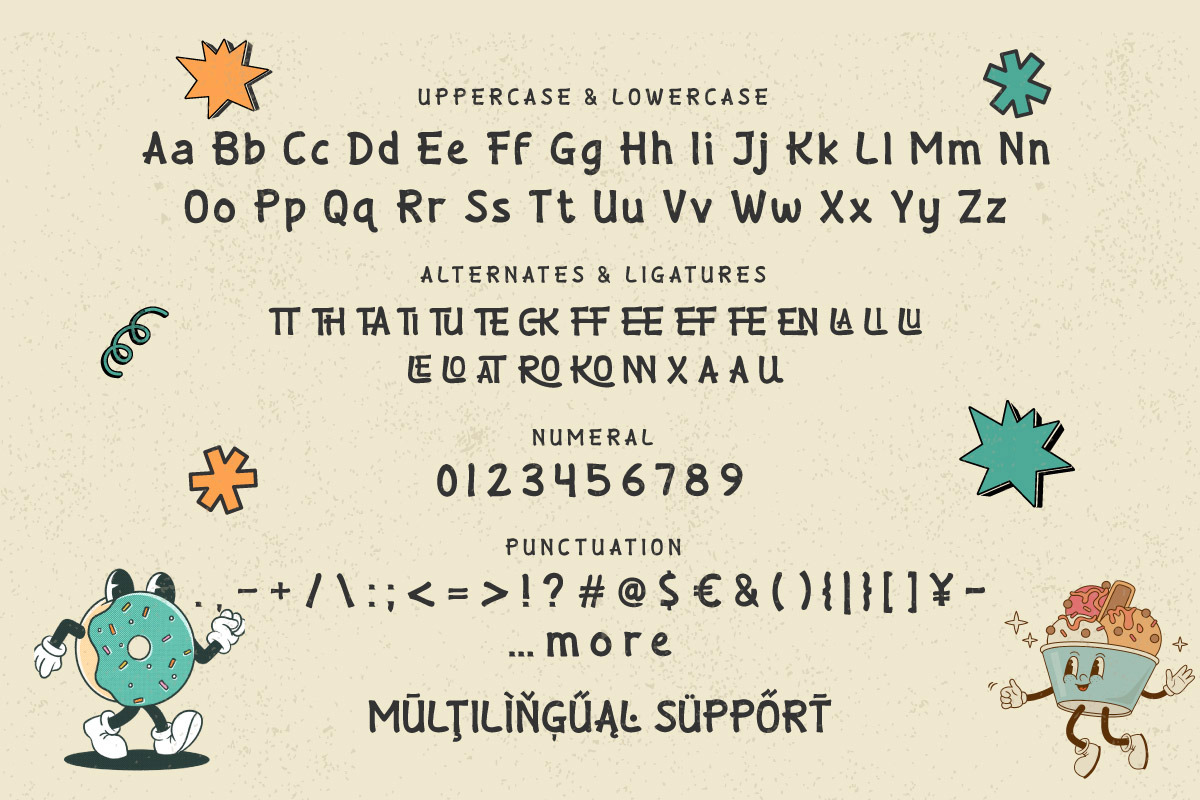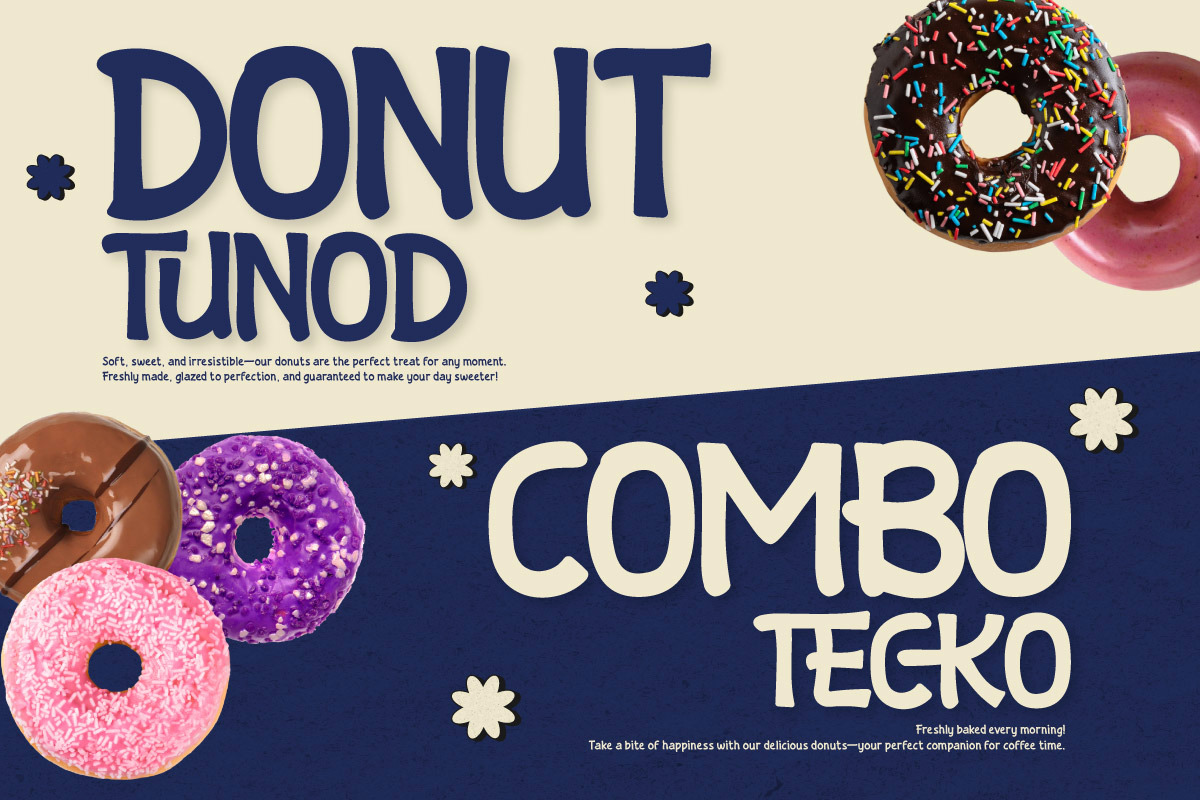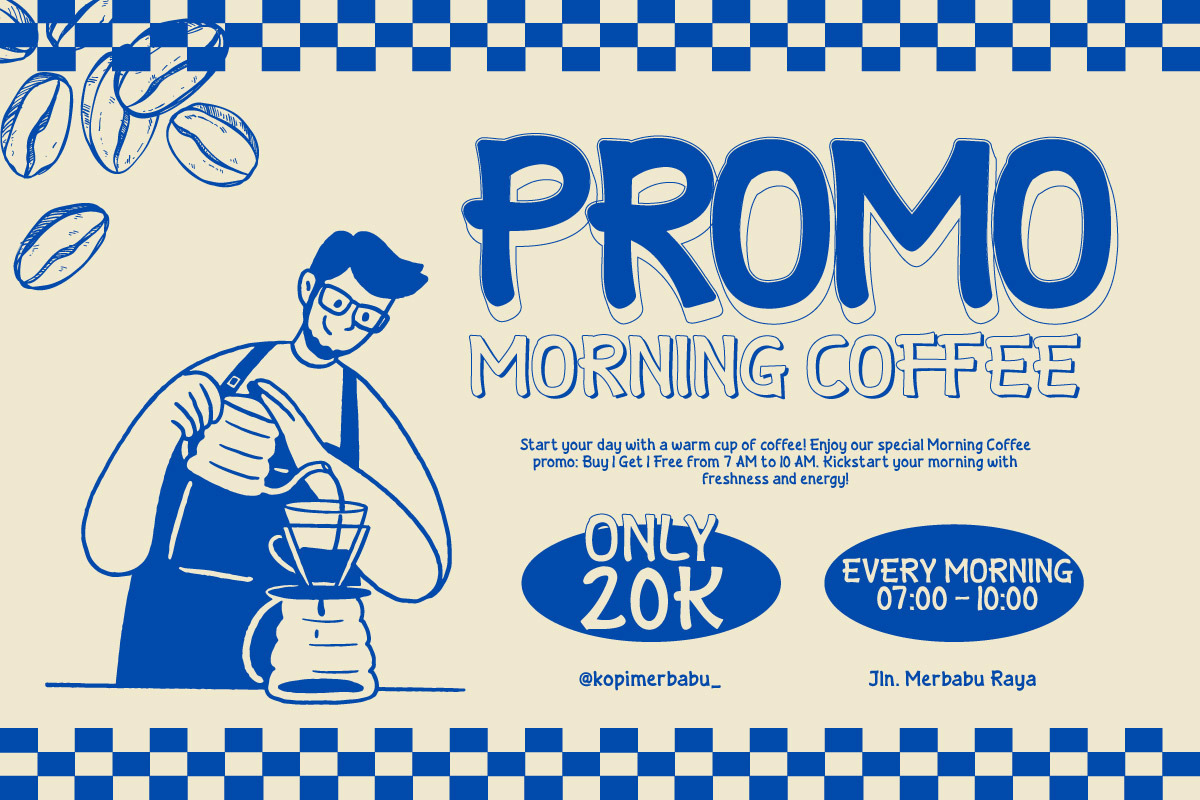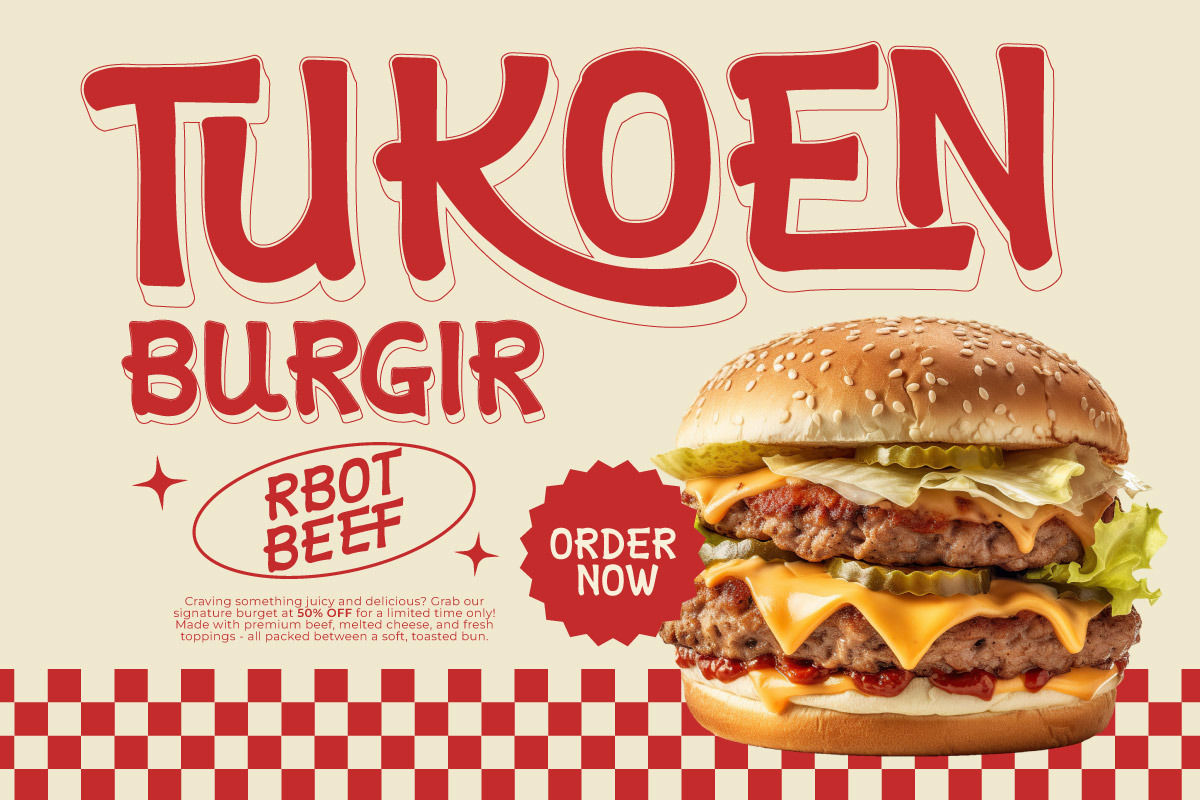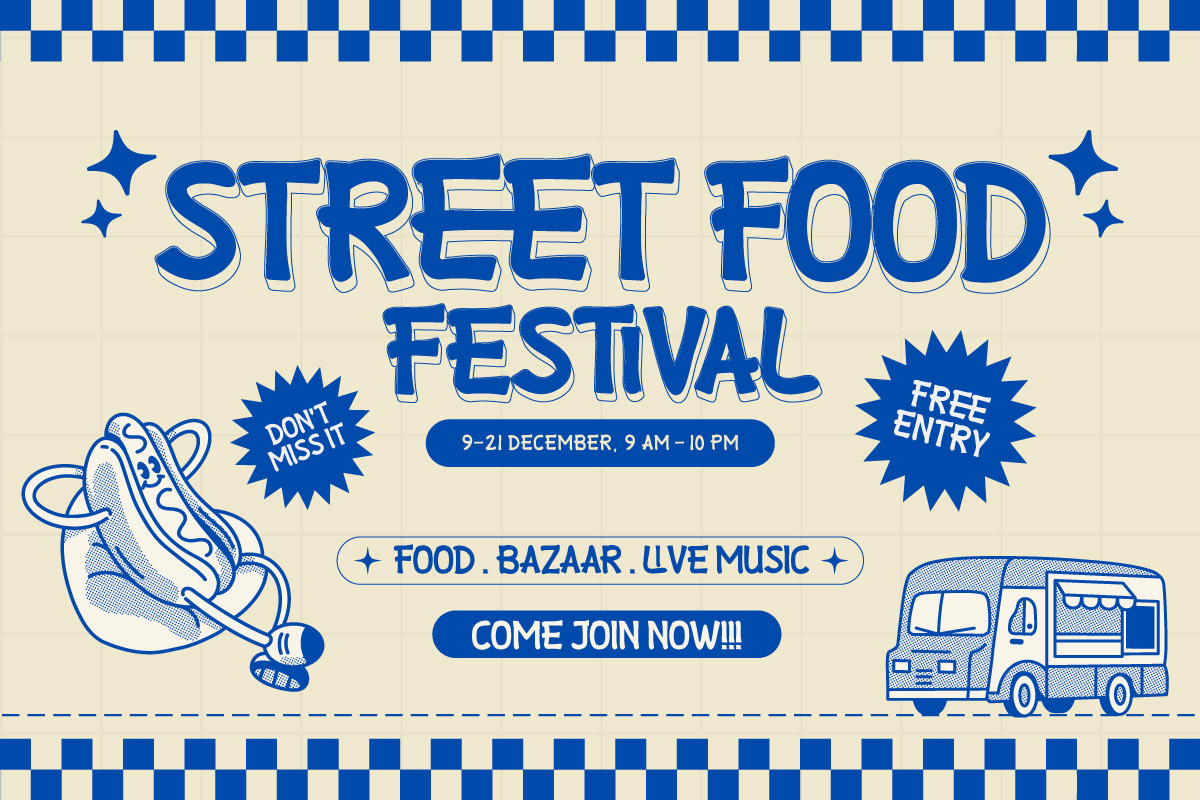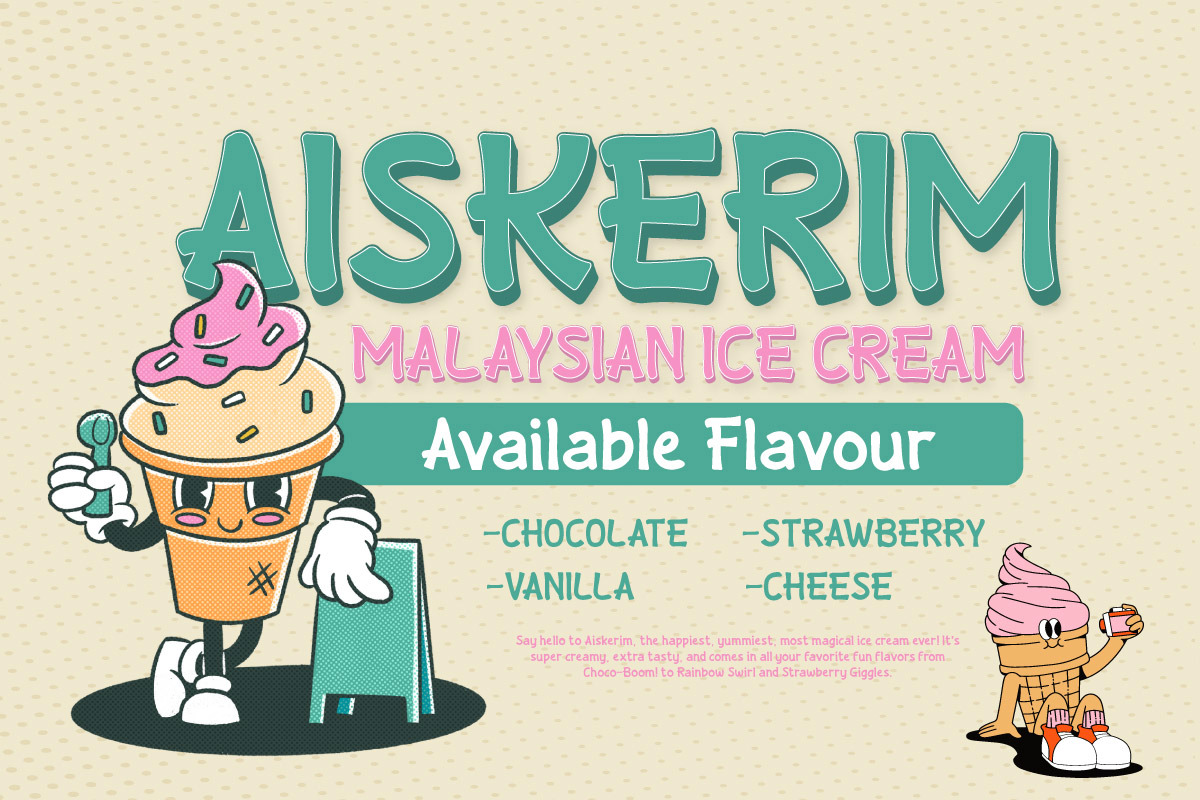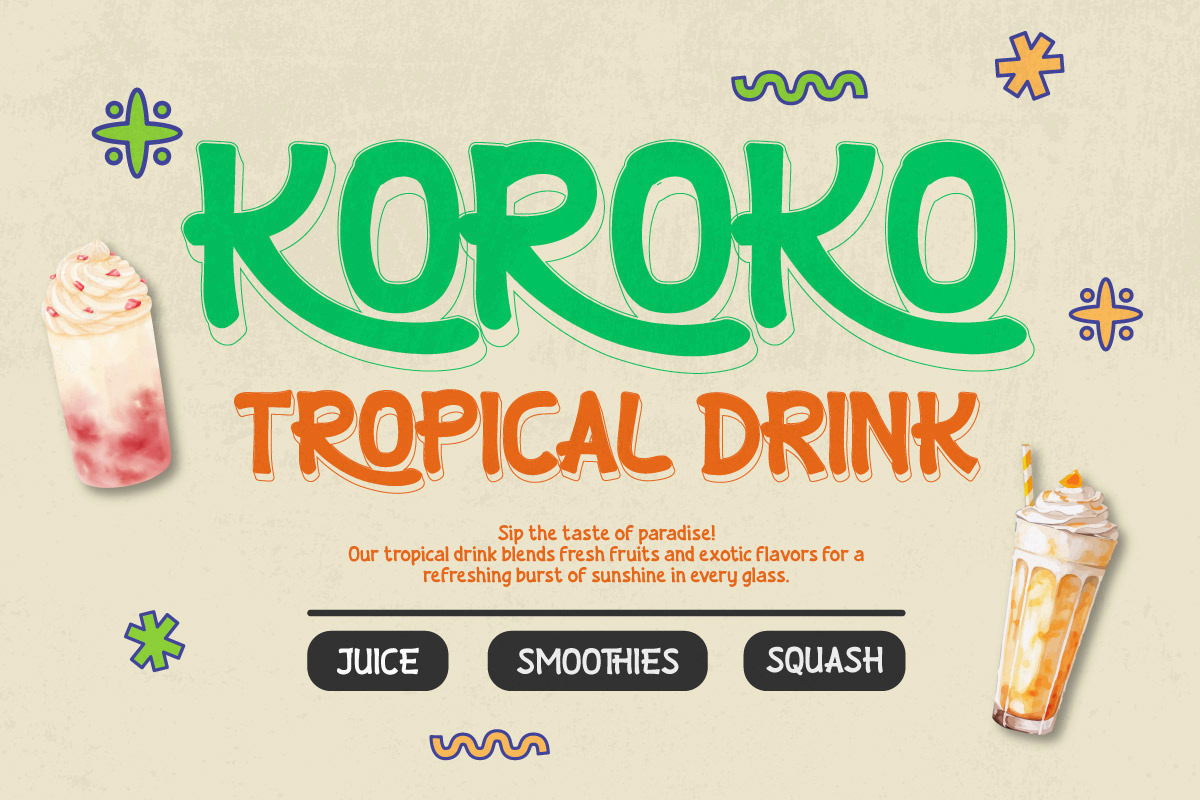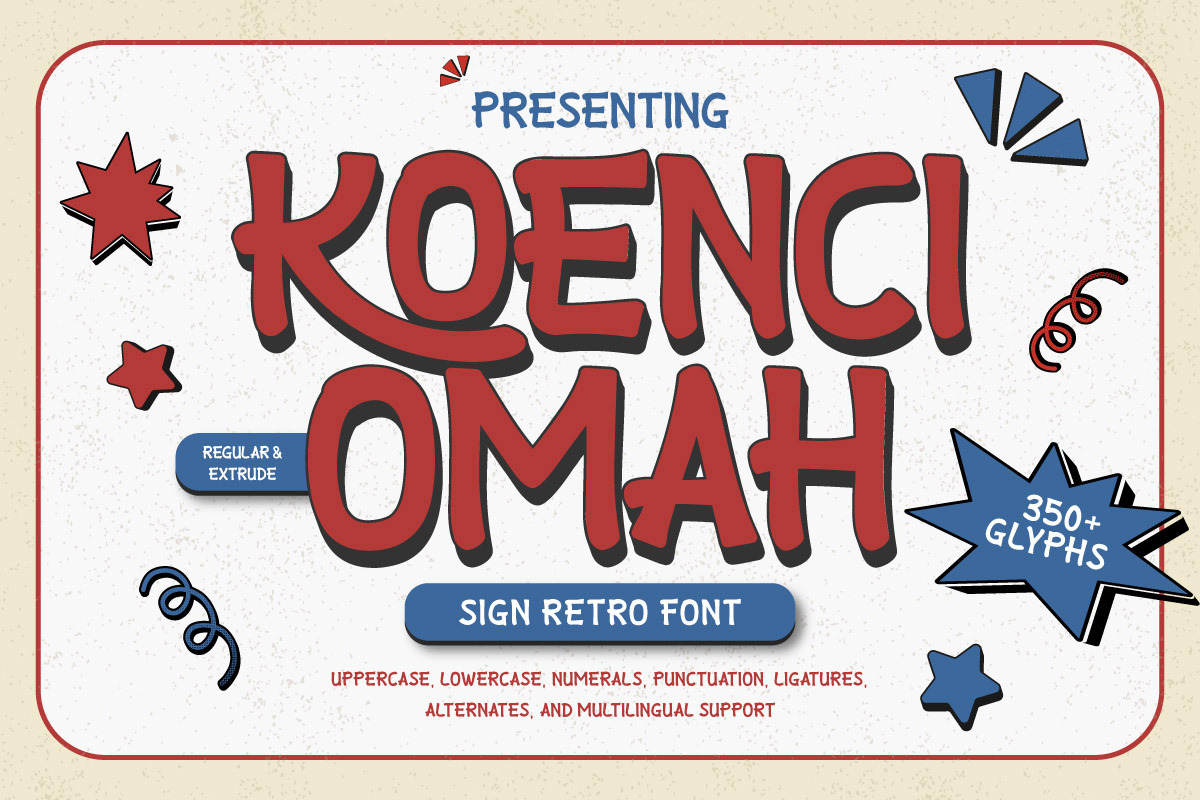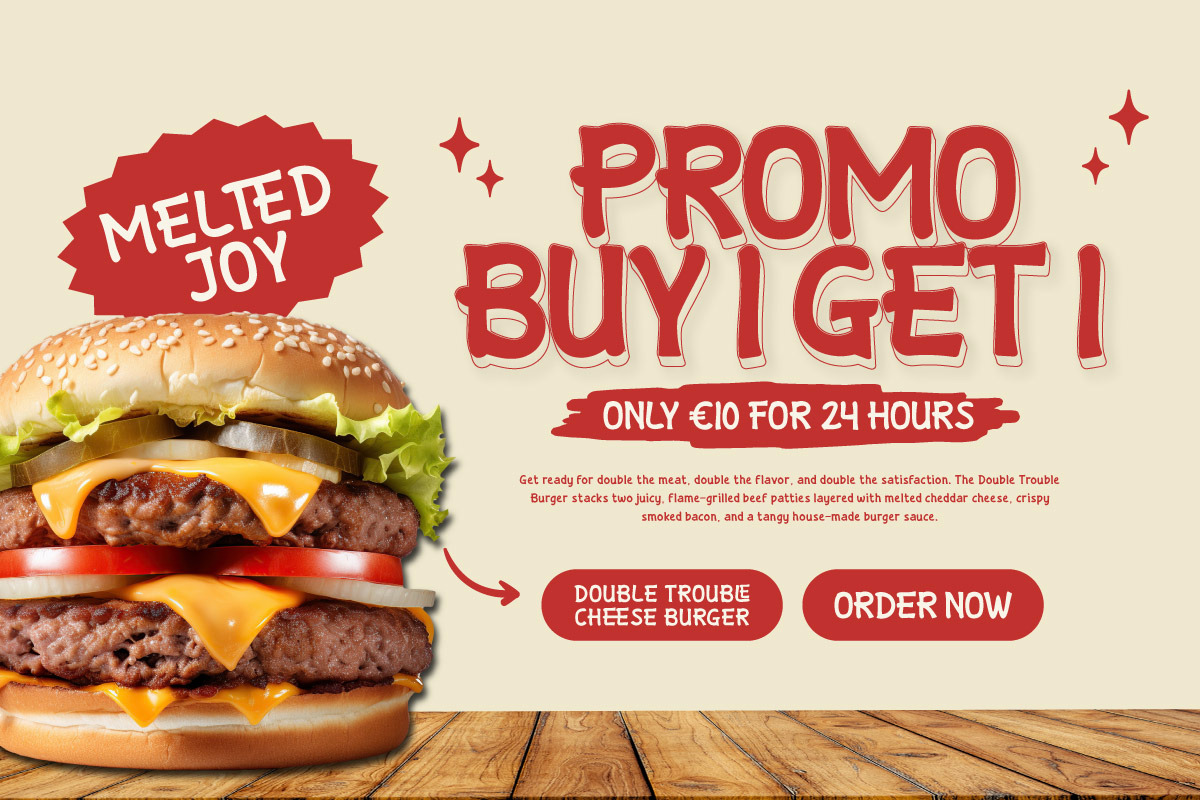
Koenci Omah - Sign Retro Font
Koenci Omah is a playful sign retro font inspired by classic hand-painted signage and vintage typography. With bold strokes and charming curves, this font captures the nostalgic spirit of retro design while remaining highly versatile for modern projects.
The font comes in Regular and Extrude styles, giving you flexibility to create striking 3D effects and layered designs with ease. Packed with 350+ glyphs, alternates, ligatures, and multilingual support, Koenci Omah is perfect for posters, packaging, logos, restaurant menus, and branding that needs a bold and friendly retro touch.
Bring back the charm of the golden signage era with Koenci Omah—a font that makes your words stand out with personality and style.